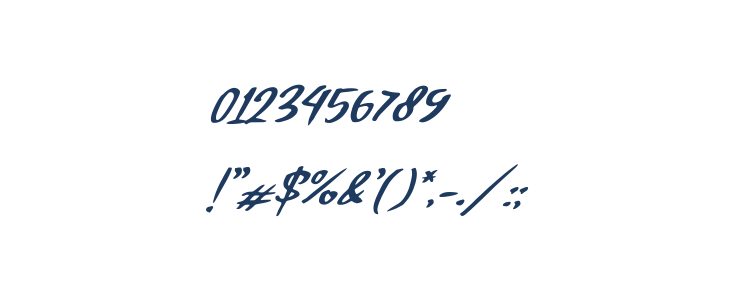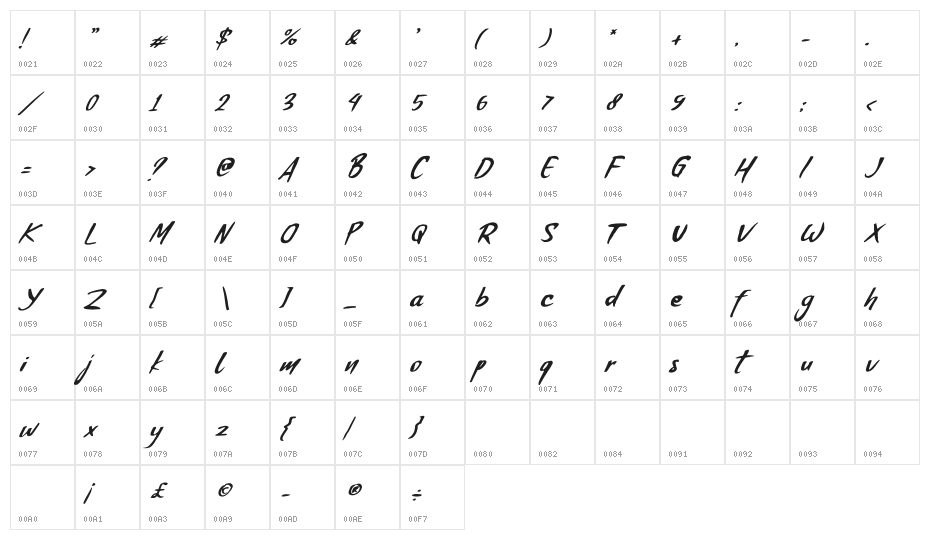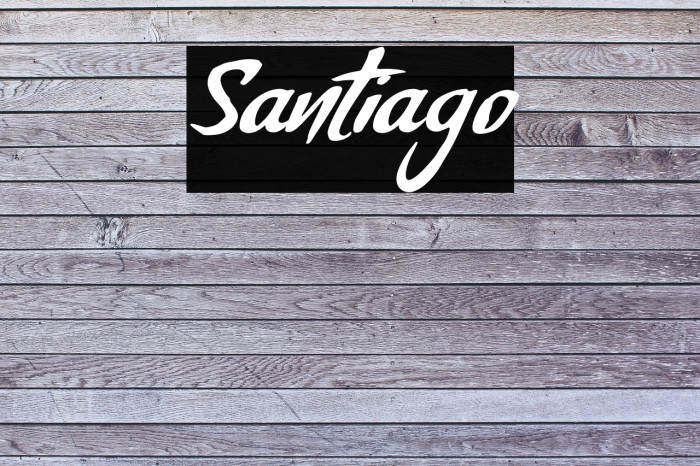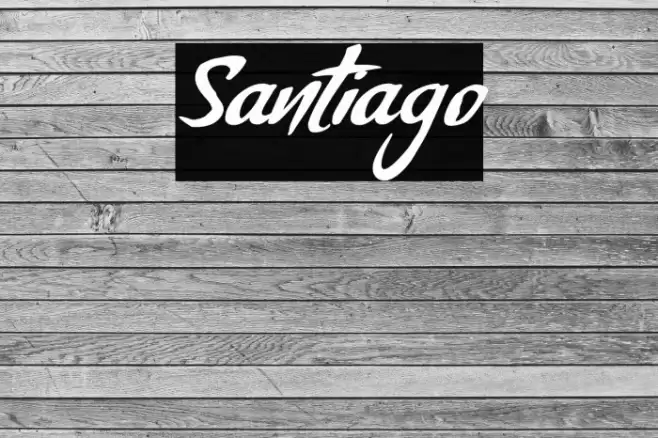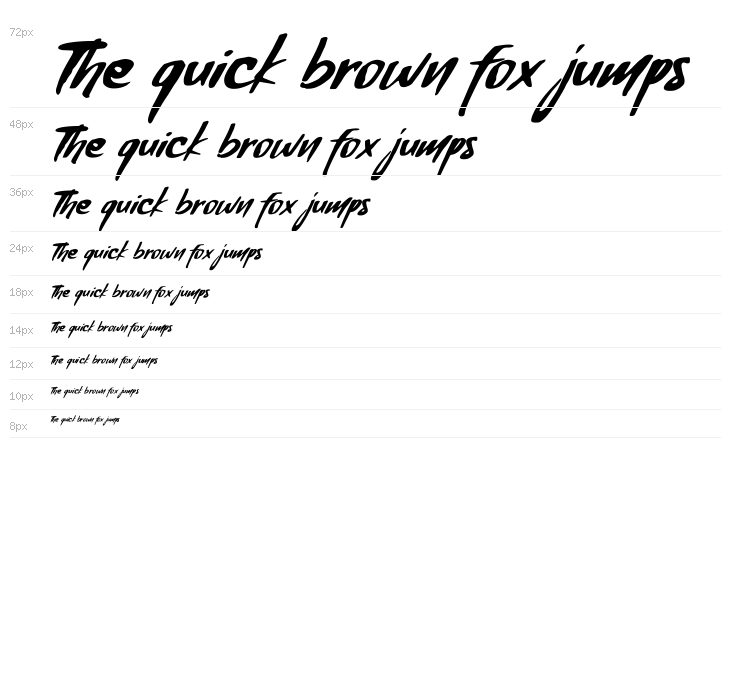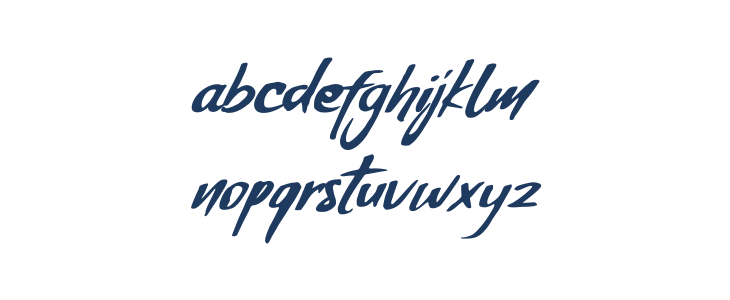
Santiago Font
Santiago Description
This font exudes a dynamic and energetic style, characterized by its bold and flowing script. The letters are crafted with a brush-like appearance, giving them a hand-painted feel. The uppercase letters are tall and slightly slanted, while the lowercase letters maintain a consistent flow, enhancing the font's overall fluidity. The numbers and special characters are designed to match the lively and expressive nature of the alphabet. This font is perfect for projects that require a personal touch or a sense of movement and creativity.
| Proposed Projects | Ideal for branding, logos, invitations, posters, and any design needing a personal, artistic touch. |